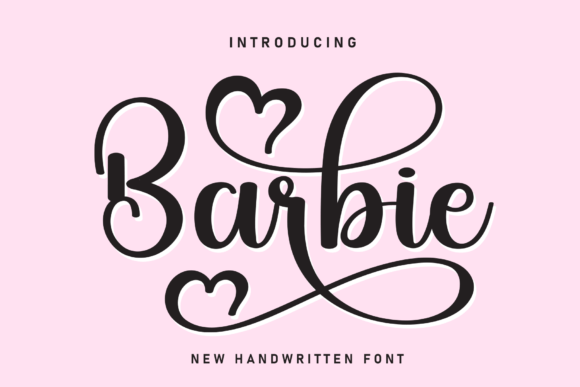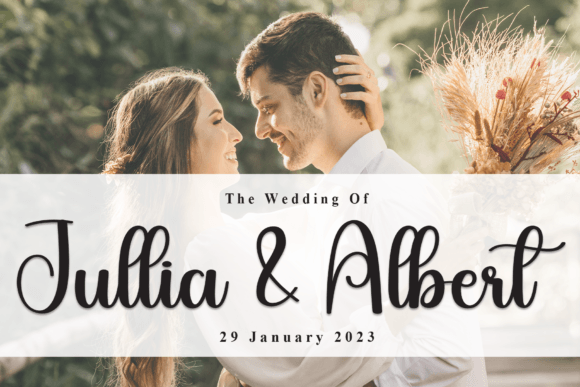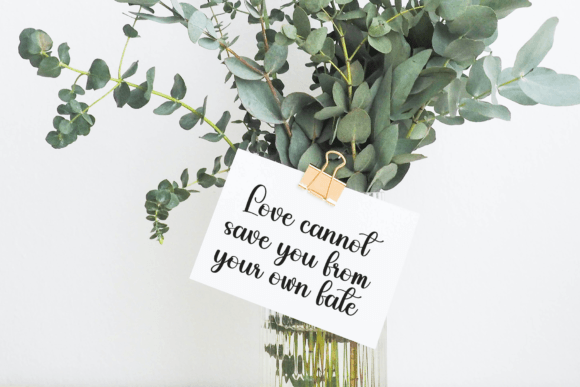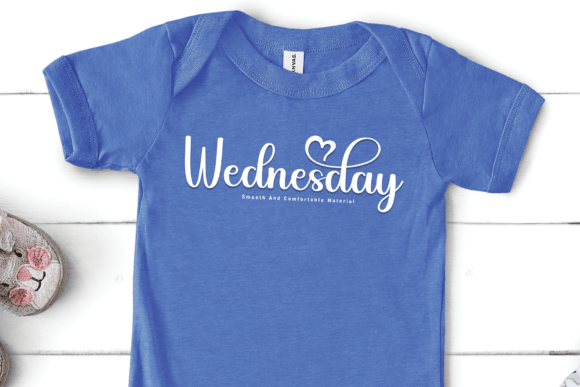
About the Barbie Font
Elevate your designs with Barbie Font, a font that combines sophistication with readability. Barbie is a charming handwritten font imbued with a sense of freshness and casual elegance. Its fluid strokes and organic lines evoke a laid-back vibe, making it perfect for various design projects. Whether used for branding, invitations, or social media graphics, Barbie adds a touch of warmth and personality.